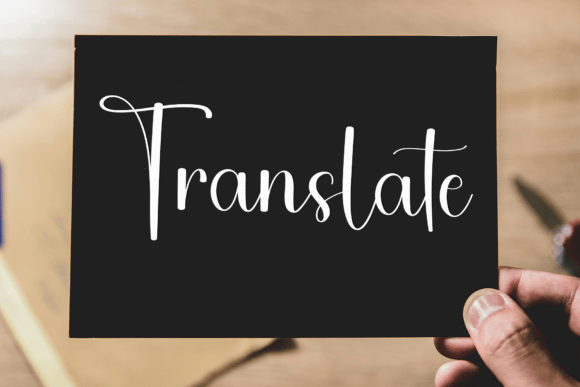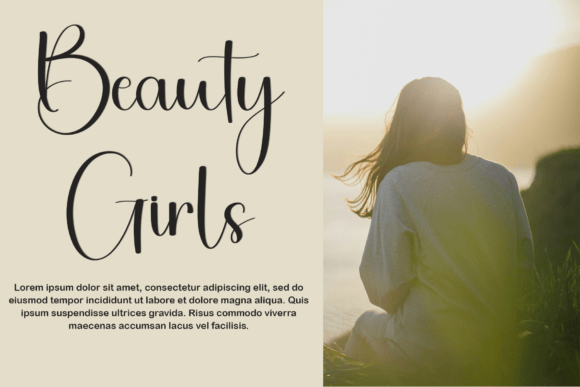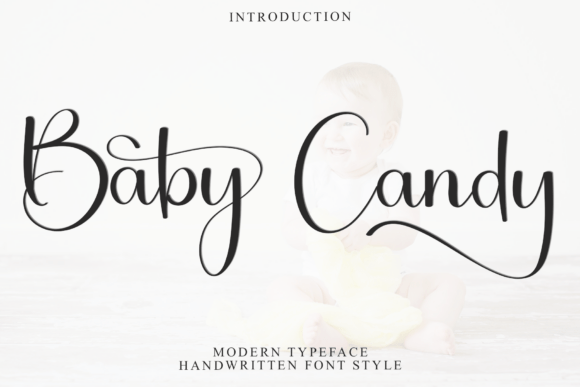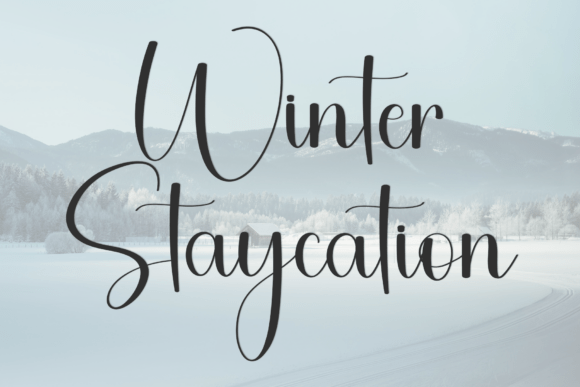
Baby Candy Font
About the Baby Candy Font
Discover the charm of Baby Candy Font. This font is a perfect blend of modern aesthetics and classic appeal. Baby Candy is a handmade font that blends elegance with charm. With graceful swashes and fluid curves, this script is perfect for baby apparel, branding, baby shower invites, and milestone cards. It offers a luxurious yet playful tone that’s sure to stand out.
Baby Candy’s playful elegance makes it ideal for projects requiring a touch of whimsy and sophistication. It excels in headlines, short text blocks on packaging, and invitations, adding a handcrafted feel. However, its decorative nature makes it less suitable for body text or UI elements where readability is paramount. Avoid using it for lengthy paragraphs.
Pair Baby Candy with a clean sans-serif like Montserrat for a modern contrast, or a classic serif like Garamond for a more traditional feel. A simple geometric sans-serif could also work well, providing a balanced structure to offset the font’s flowing script.
The overall personality is best described as charmingly sophisticated; friendly yet refined, and ideally suited to brands focused on children’s products, artisanal goods, or boutique businesses emphasizing quality and handcrafted details.
Baby Candy Font Usage Examples